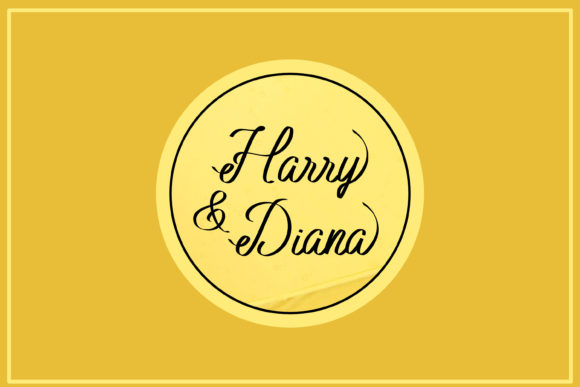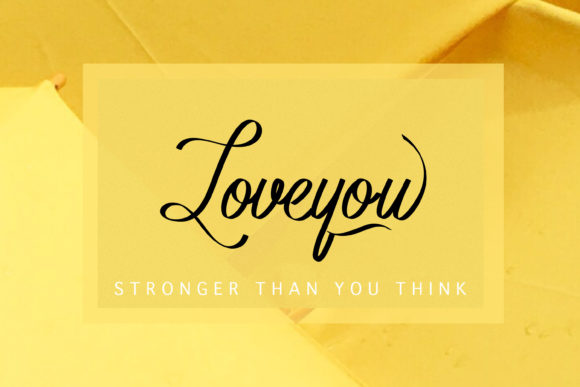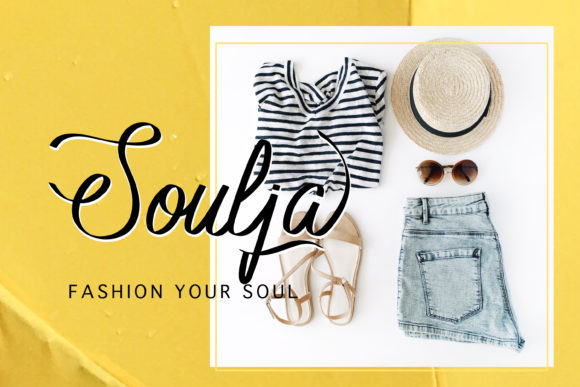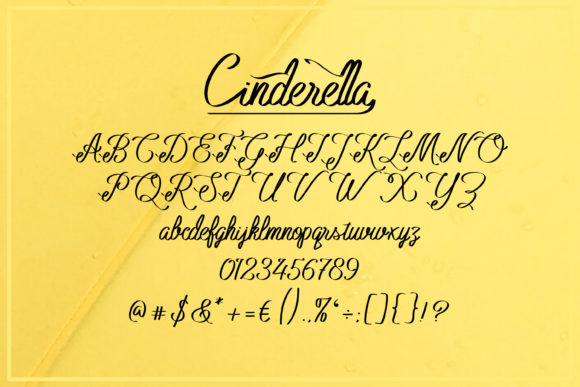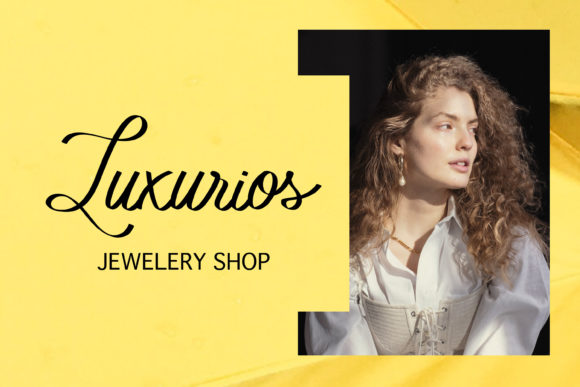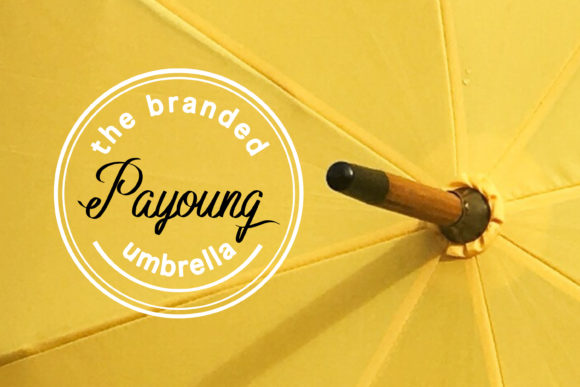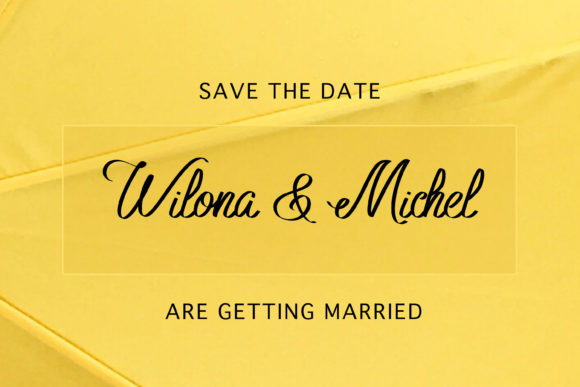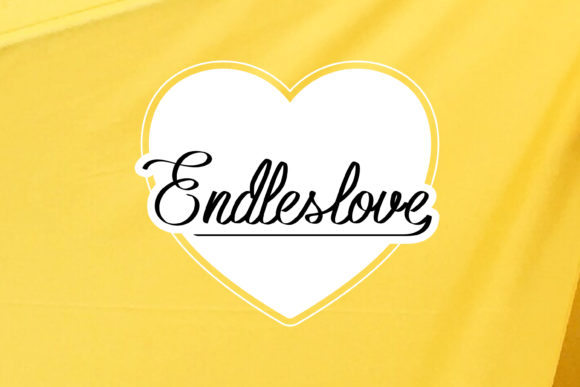
Cinderella Font
About Cinderella Font
Cinderella is a sophisticated handwritten font. It’s perfect for branding, wedding invitations, and cards. Whatever the topic, this font will be a great asset to your font library, as it has the potential to enhance any creation! This font is PUA encoded which means you can access all the glyphs and sweeps easily!